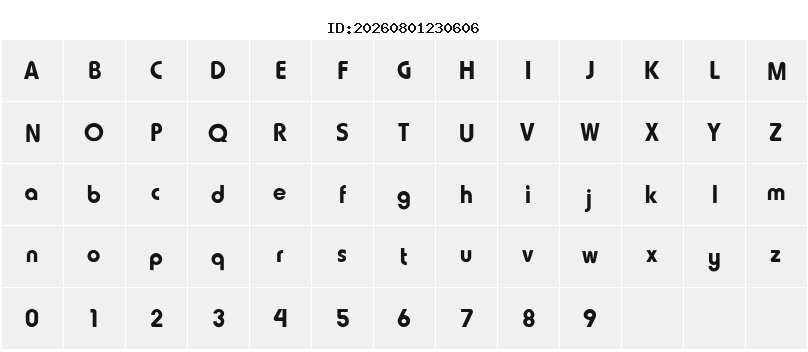
About Medwed.ttf
Medwed.ttf is a modern, elegant sans-serif font designed for ultimate readability and visual harmony. Perfect for branding, headlines, web design, and print materials.